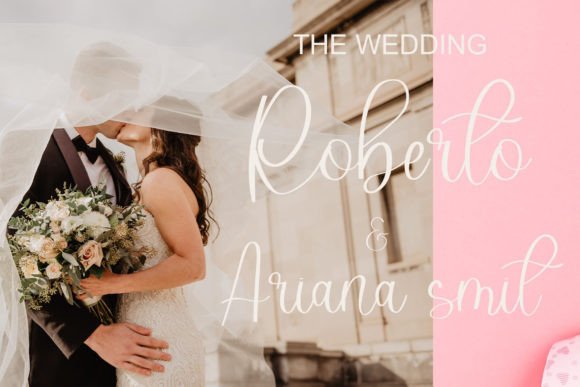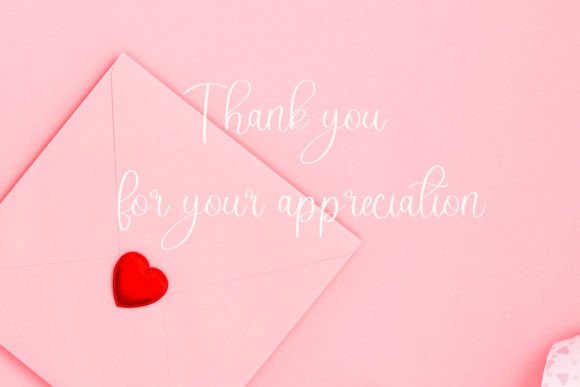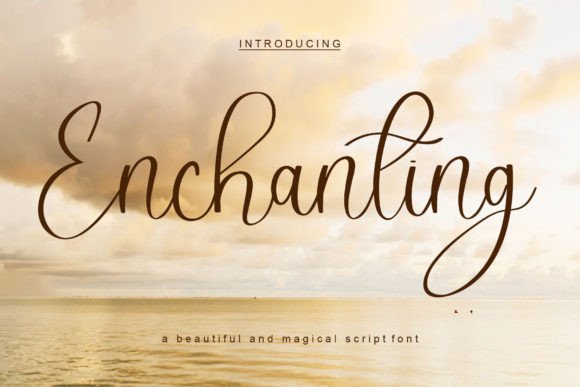
Discover the Enchanting Font: Elevate Your Designs with Elegance
Are you on the hunt for a font that exudes sophistication, elegance, and a touch of whimsy? Look no further than the Enchanting Font, a beautiful handwritten typeface that is sure to capture your heart. With its perfect blend of classic calligraphic influences and modern flair, this exquisite font is poised to become your new favorite design companion.
The Charm of Enchanting Font
Enchanting Font is a masterfully designed handwritten font that boasts a unique charm, setting it apart from more generic typefaces. Its classy calligraphic roots are evident in its fluid strokes and elegant letterforms, yet it also possesses a freshness and contemporaneity that makes it perfect for a wide range of design applications.
Key Features of Enchanting Font
- Exquisite Handwritten Style: Enchanting Font features a beautiful, hand-crafted design that lends a personal and sophisticated touch to any project.
- Classy Calligraphic Influences: The font’s calligraphic heritage is evident in its elegant strokes and refined letterforms, adding a level of sophistication to your designs.
- Contemporary and Fresh: Despite its classic roots, Enchanting Font feels modern and current, making it perfect for designers looking for a font that will help their work stand out.
- Versatile: Whether you’re working on a wedding invitation, a branding project, or a digital product, Enchanting Font is versatile enough to adapt to any design need.
Why Choose Enchanting Font?
With so many fonts available to designers today, it can be challenging to find one that truly stands out from the crowd. Here are just a few reasons why Enchanting Font should be at the top of your list:
- Unique and Memorable: Enchanting Font’s distinctive style ensures that your designs will be remembered long after they’re seen.
- Easy to Read: Despite its elegant and cursive nature, Enchanting Font remains highly legible, making it suitable for both headings and body text.
- Highly Versatile: From digital media to print materials, Enchanting Font can be used across a wide range of platforms and applications.
How to Use Enchanting Font in Your Designs
Enchanting Font is incredibly versatile and can be used in a multitude of design projects. Here are a few ideas to get you started:
- Wedding and Event Stationery: Add a touch of elegance to your wedding invitations, save the dates, and event programs.
- Branding and Packaging: Use Enchanting Font to create eye-catching logos, product labels, and packaging that stands out.
- Digital Products: Incorporate Enchanting Font into your website, mobile app, or digital marketing materials to add a level of sophistication.
- Arts and Crafts: Perfect for crafters, Enchanting Font can be used for journaling, card making, and other paper crafting projects.
If you’re searching for a font that combines elegance, class, and a touch of magic, look no further than the Enchanting Font. Its exquisite handwritten design, coupled with its versatility and readability, make it an excellent choice for designers and crafters alike. Whether you’re working on a professional project or a personal craft, Enchanting Font is sure to bring your designs to the highest levels. So why wait? Fall in love with Enchanting Font today and discover a world of creative possibilities at your fingertips.